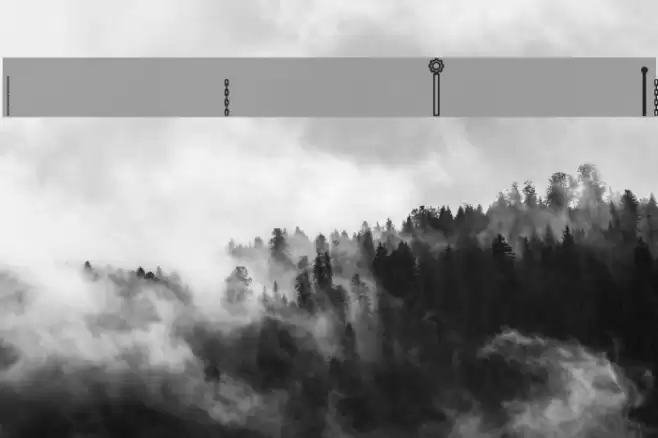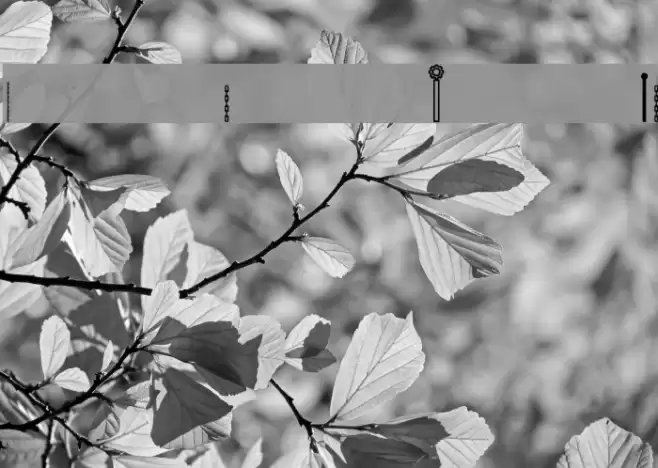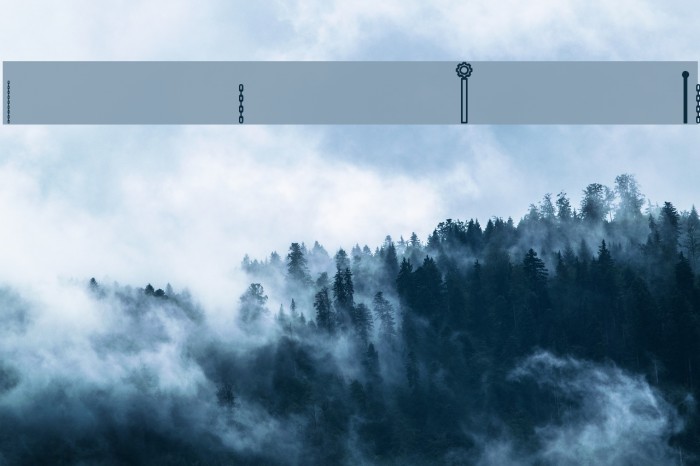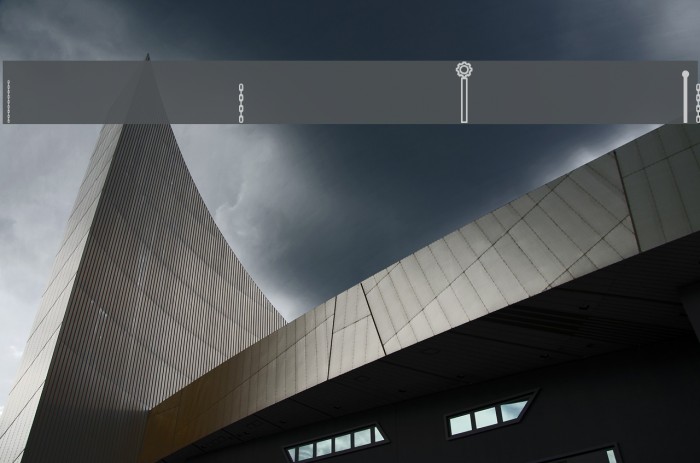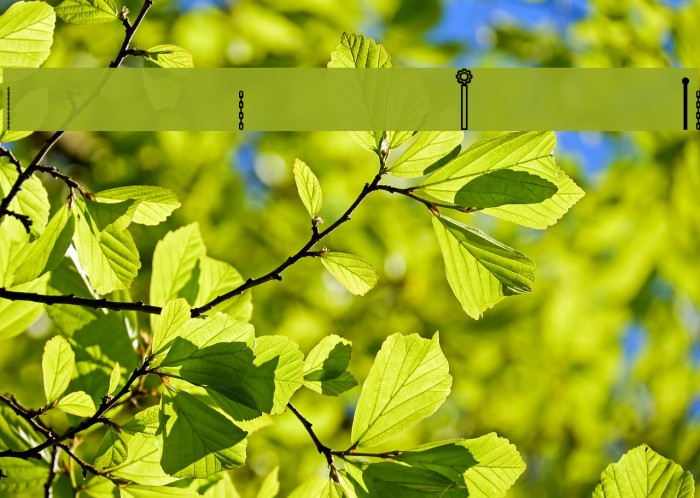
Swing Thing Dings LT Font
Swing Thing Dings LT Description
This collection features a playful assortment of decorative symbols and shapes, each with a unique flair. The designs include a variety of lines topped with hearts, stars, flowers, and geometric shapes, offering a whimsical and creative touch. These elements are perfect for adding a decorative accent to projects, with a consistent line weight and clean, bold outlines. The style is distinctly modern and playful, making it suitable for creative and artistic applications. The symbols are versatile, providing a range of options for embellishing designs with a fun and lively aesthetic.
A playful set of decorative symbols with hearts, stars, and geometric shapes from Uncategorized fonts.
- Proposed Projects: Ideal for scrapbooking, greeting cards, digital art, and decorative borders.
- Use Case: Decorative elements, Artistic projects